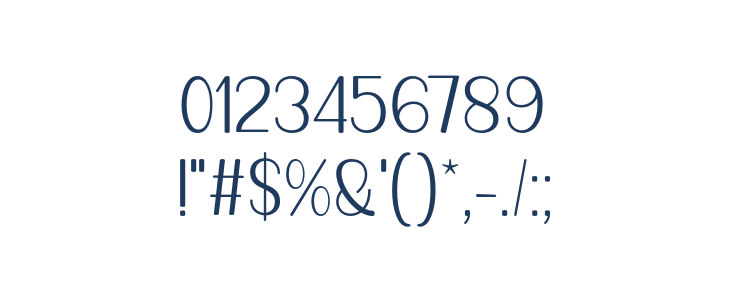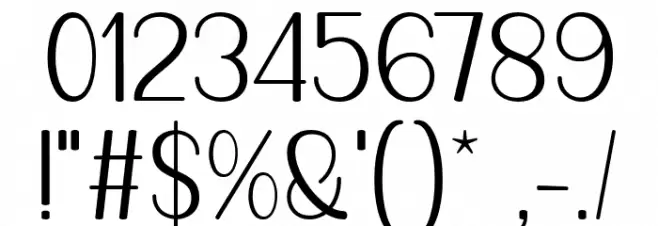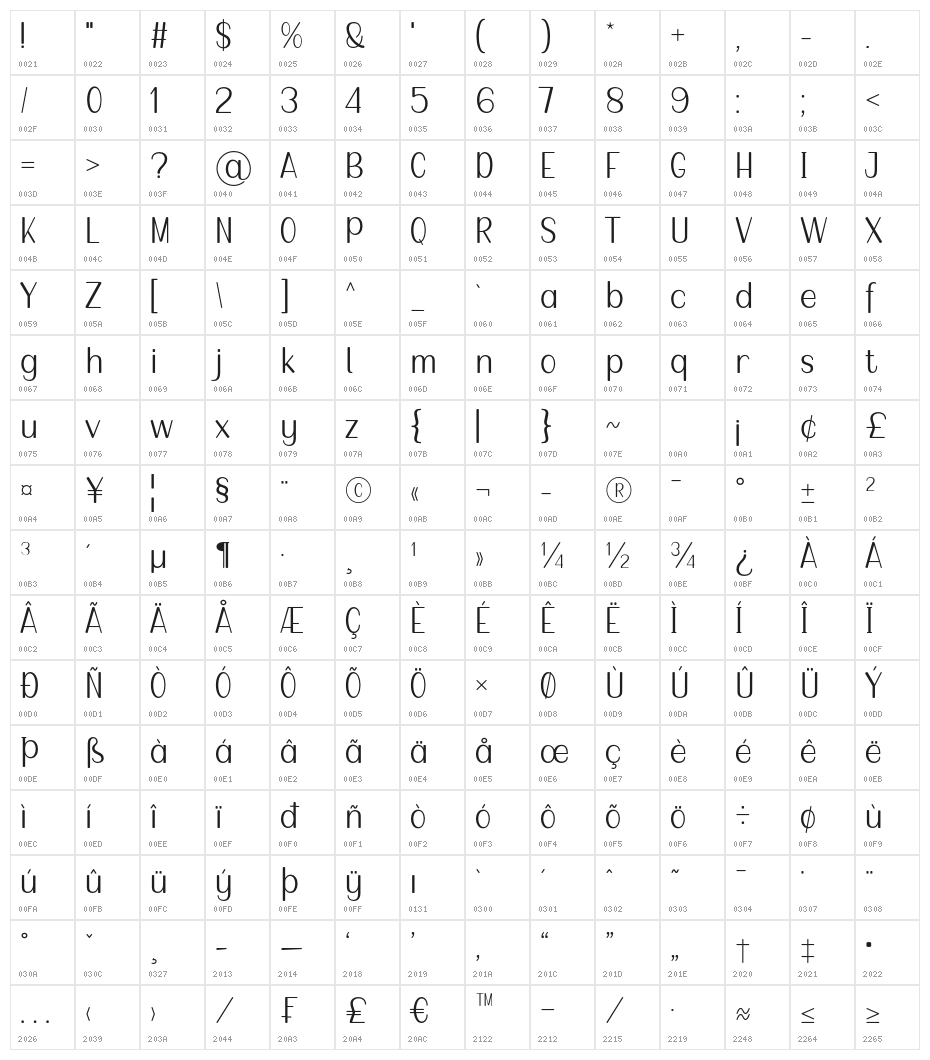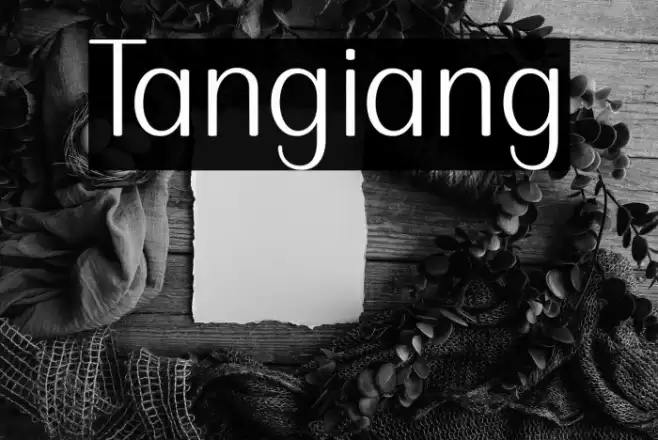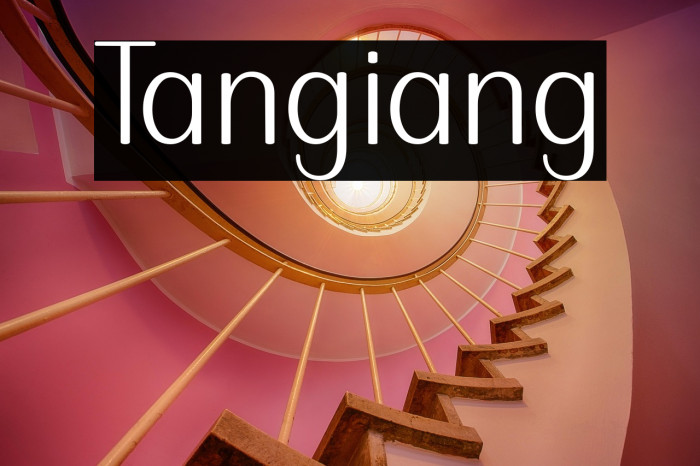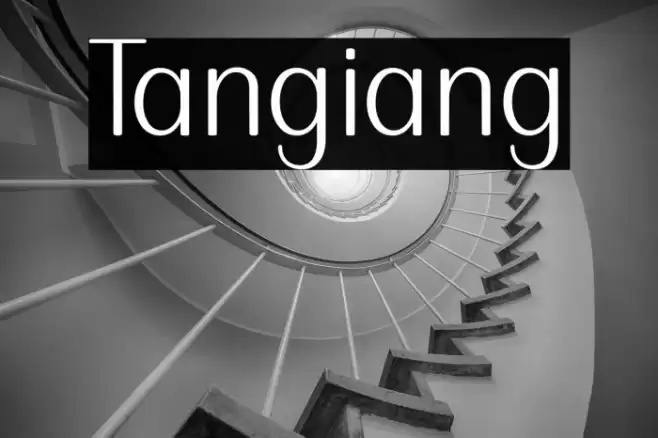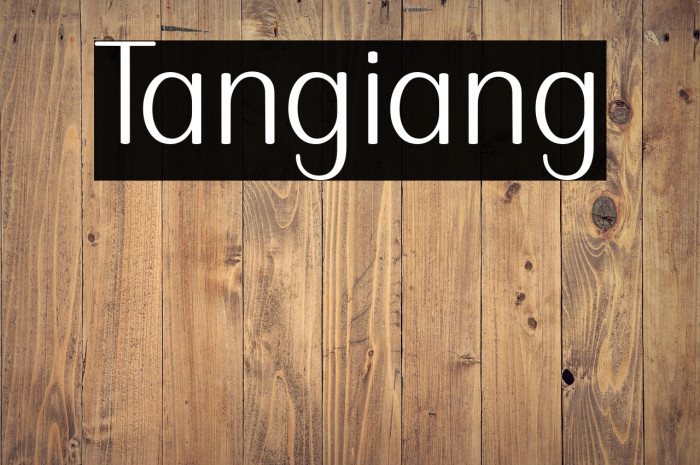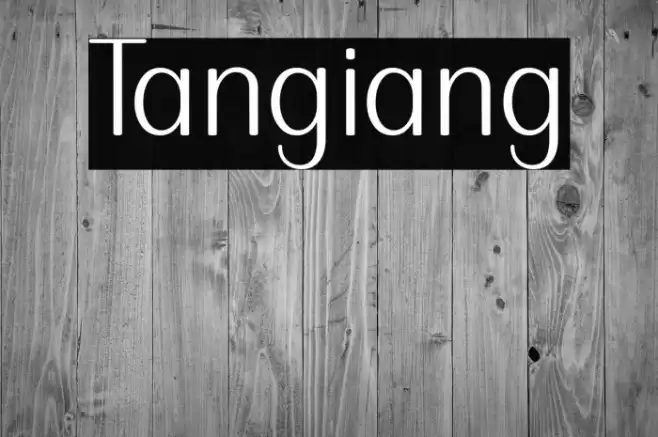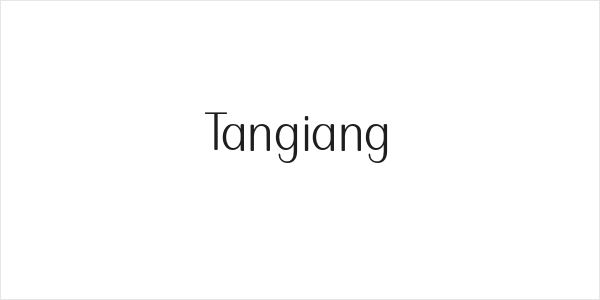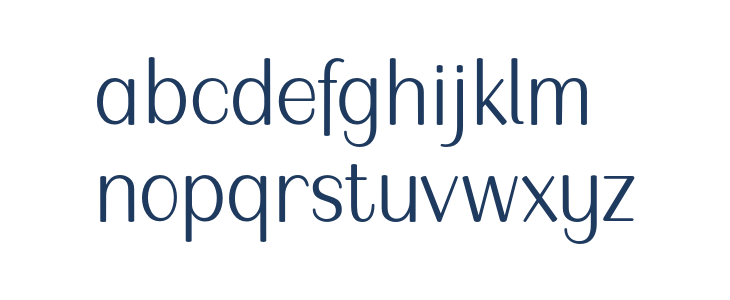
Tangiang Font
Tangiang Description
This font features a clean and modern sans-serif style with a slightly condensed appearance. The characters are tall and narrow, providing a sleek and elegant look. The uppercase letters are uniform in height, while the lowercase letters maintain a consistent baseline, enhancing readability. The numerals are well-proportioned, and the special characters are distinct, making them suitable for various applications. The overall design is minimalistic, with a focus on clarity and simplicity, making it versatile for both digital and print media.